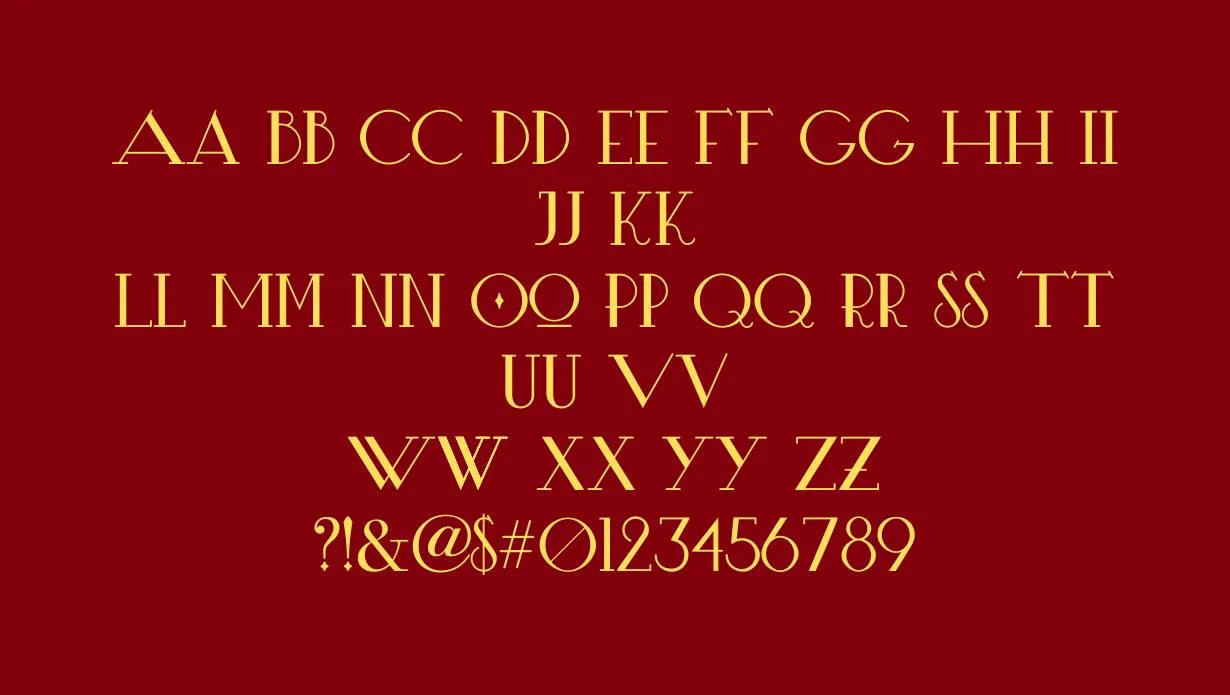
The Hot Rod Font was designed by Tano Veron, an expert in creating fonts with a retro and stylish flair. It’s perfect for adding a touch of nostalgia and personality to your designs, especially for projects with a classic, old-school vibe.
Hot Rod Font Family
| Name | Hot Rod Font |
| Designer | Eduardo Tunni |